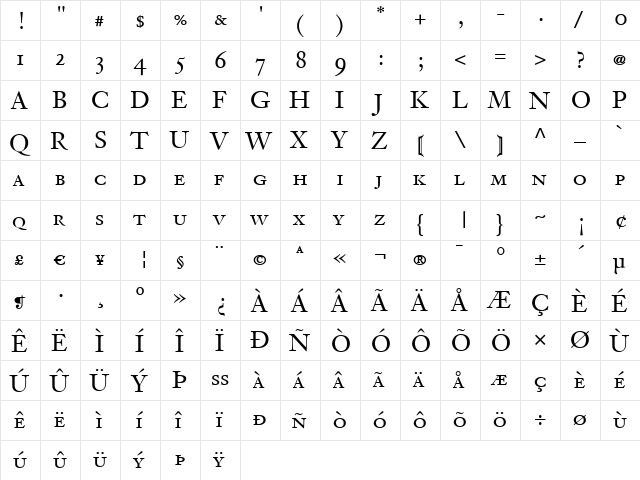
Tyrnavia Regular
Design Context for Tyrnavia Typeface
Tyrnavia takes a measured approach to typography — its balanced proportions and neutral character make it a reliable workhorse for both digital and print work.